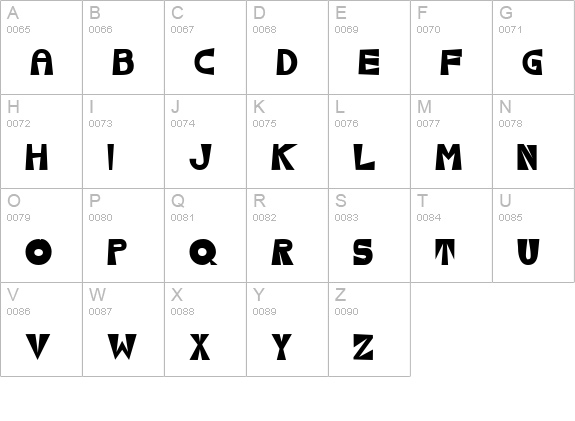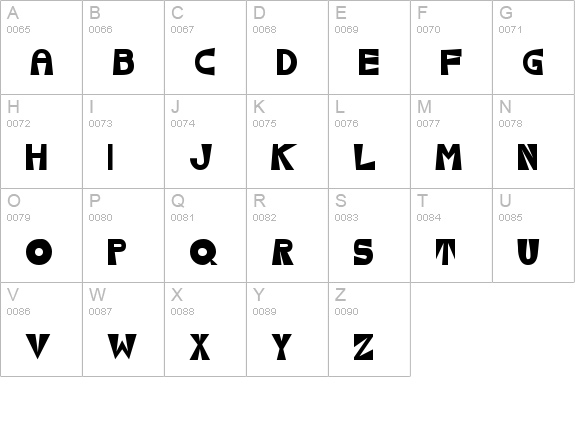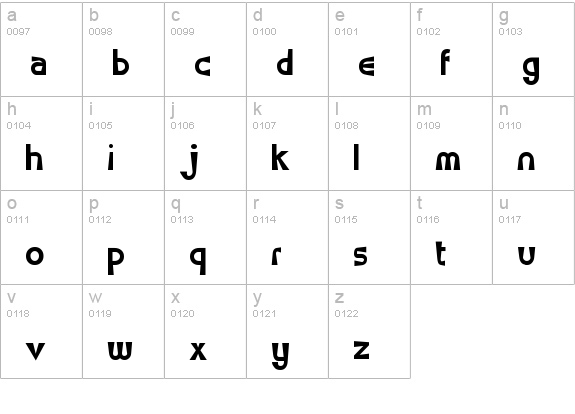
Seventy Flares Font Details
Seventy Flares font is a stunning display typeface that exudes a sense of timeless elegance and sophistication. With its intricate details and carefully crafted design, this font is sure to captivate and inspire. Each letter is meticulously hand-drawn, resulting in a unique combination of sharp edges and graceful curves. What sets Seventy Flares font apart is its versatility. It can be used for a wide range of design projects, from logo designs and branding materials to posters and invitations. Its bold and distinctive appearance ensures that your message will be conveyed with impact and style. One of the greatest advantages of Seventy Flares font is that it is available for free download at FontsMarket.com. This means that designers and enthusiasts alike can enjoy the benefits of this exceptional font without any cost. Whether you are a professional designer or someone who simply appreciates beautiful typography, Seventy Flares font is an excellent addition to your font library. The attention to detail and the level of craftsmanship that went into creating Seventy Flares font is truly impressive. Each letter has been meticulously designed to create a harmonious balance between elegance and legibility. The result is a font that is not only visually appealing but also highly functional. Seventy Flares font is perfect for adding a touch of sophistication to your projects. Its timeless design ensures that it will remain relevant and stylish for years to come. Whether you are creating a logo for a high-end brand or designing an invitation for a special event, Seventy Flares font will elevate your design and make a lasting impression. Download Seventy Flares font for free at FontsMarket.com and experience the beauty and versatility of this remarkable typeface. With its exquisite details and effortless charm, it is sure to become a favorite among designers and typographers. So don't miss out on the opportunity to enhance your designs with this exceptional font. Get your hands on Seventy Flares font today and let your creativity soar.